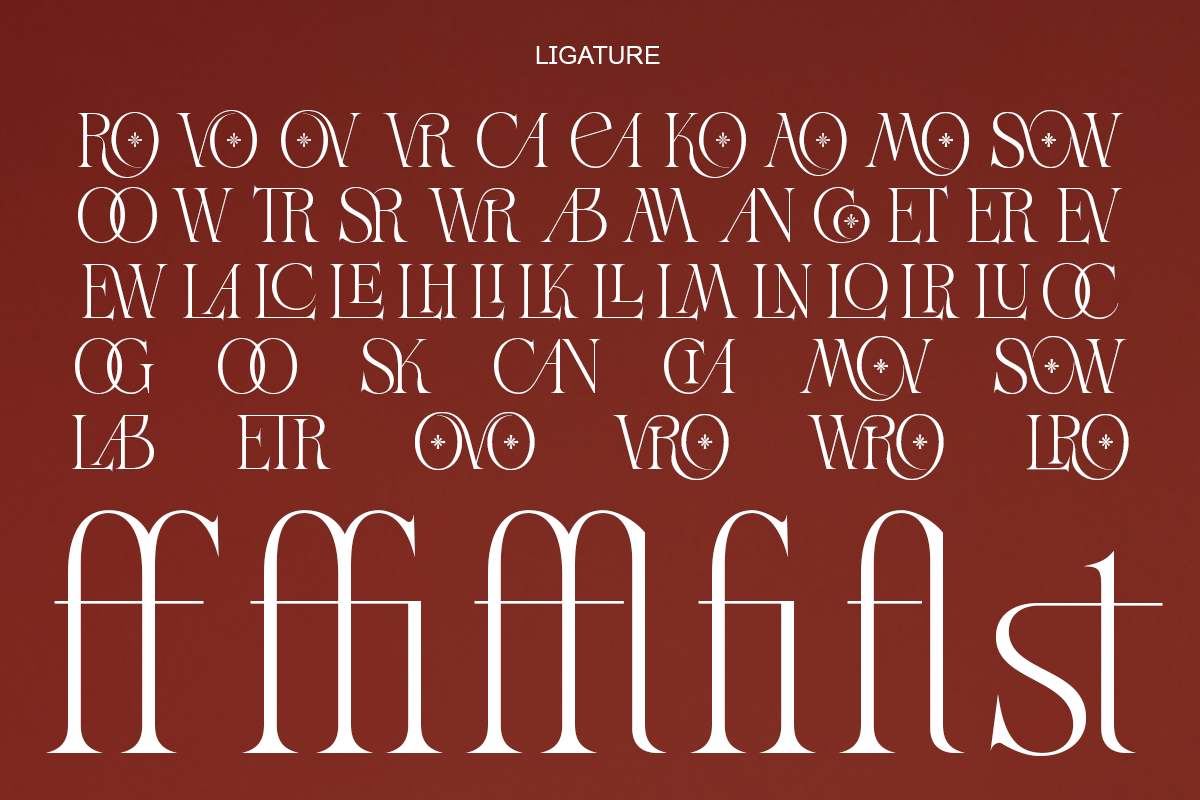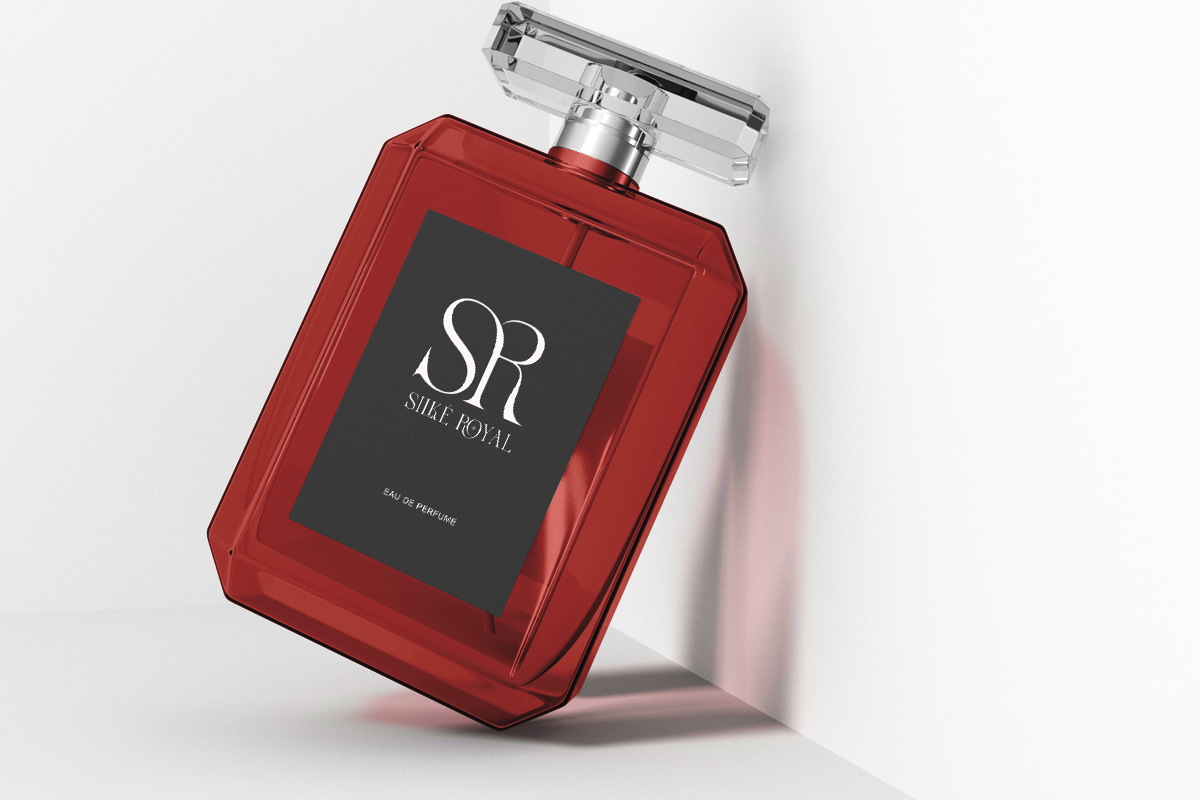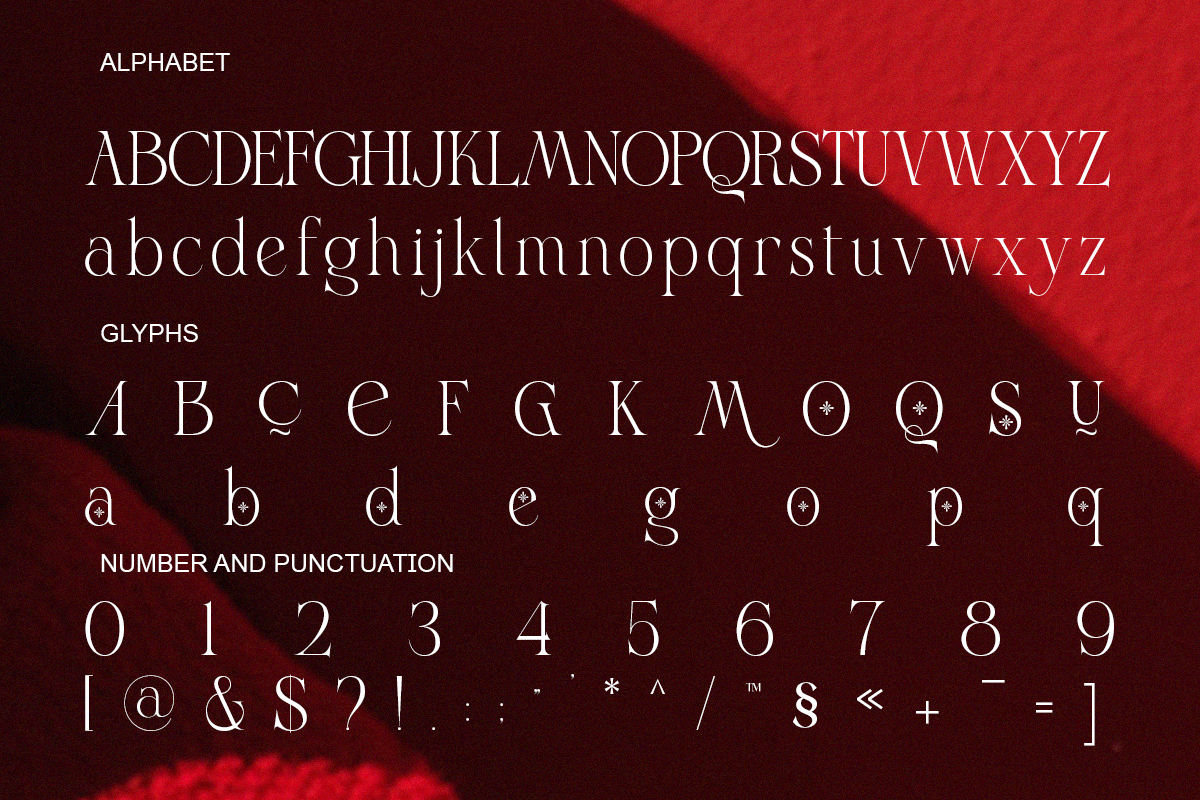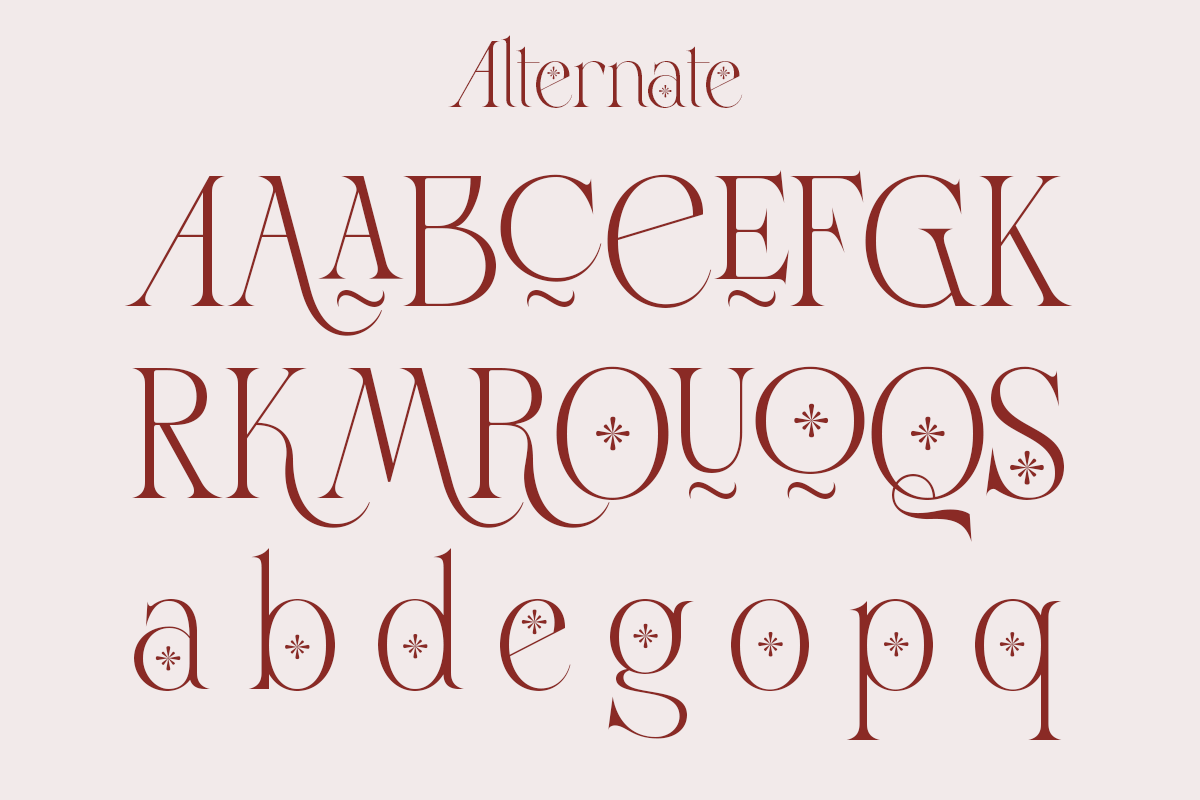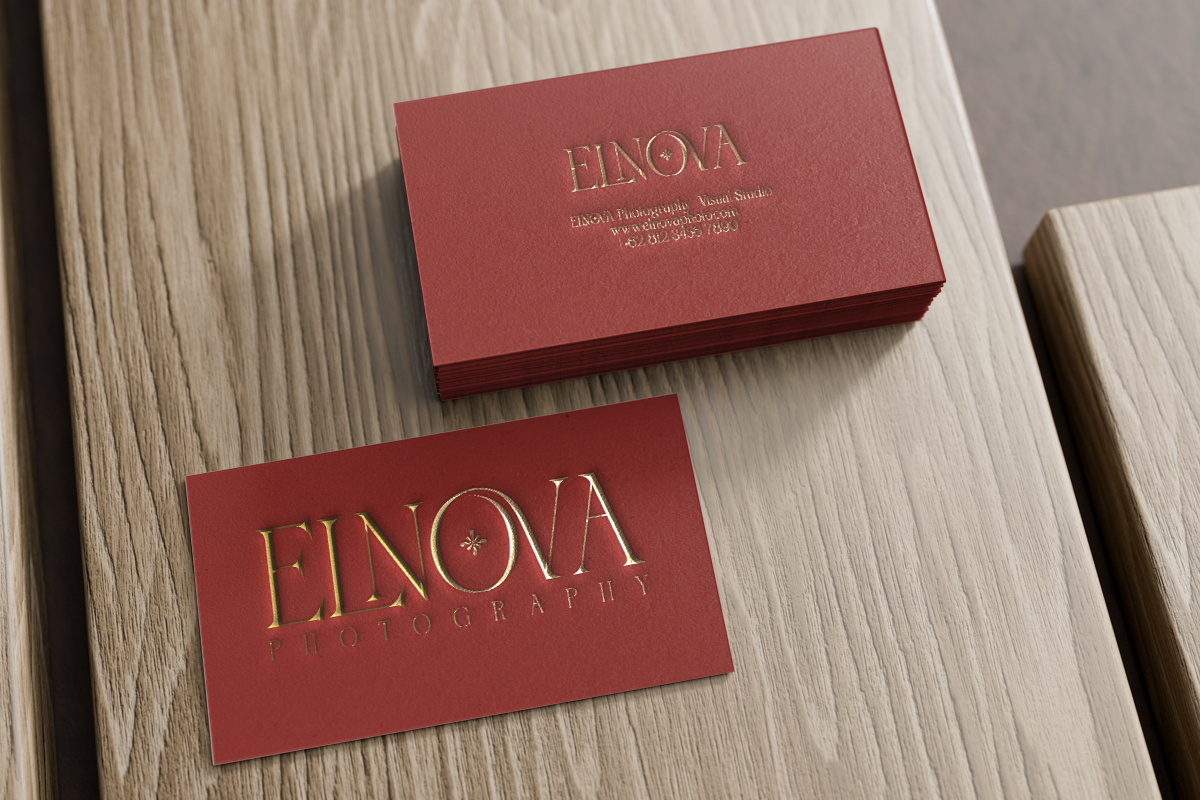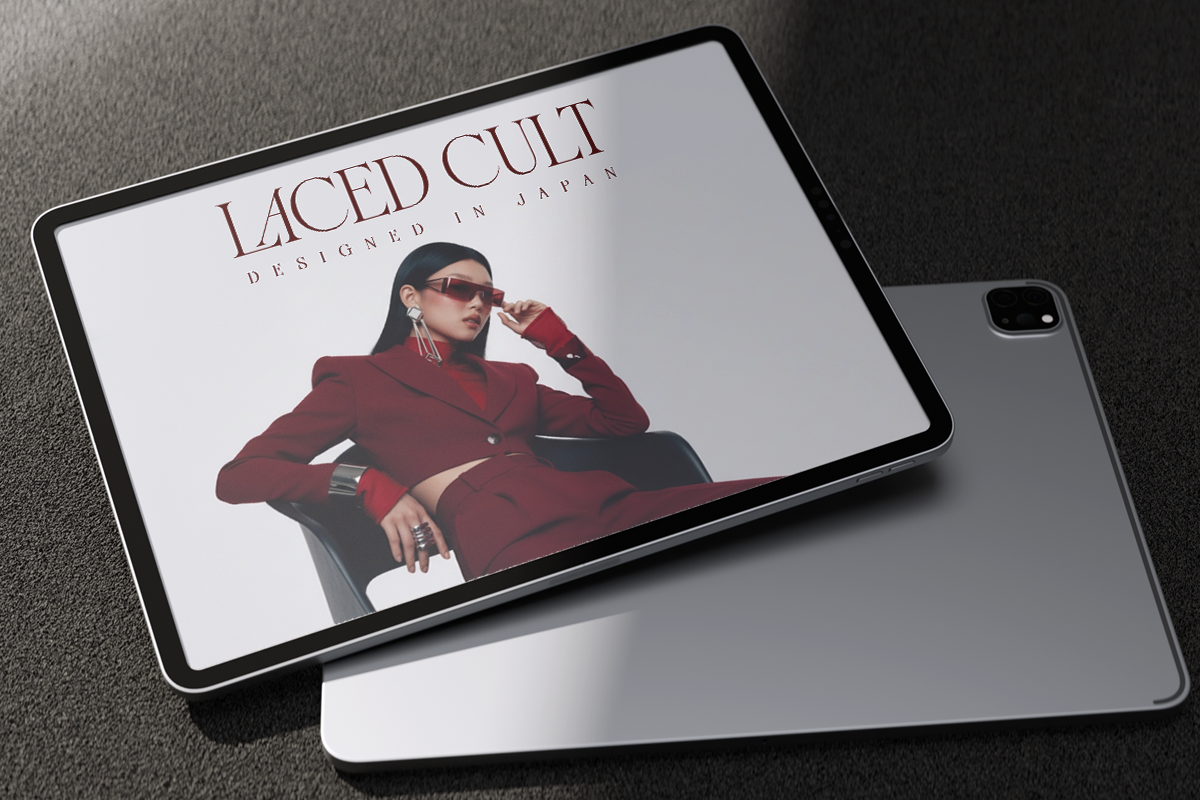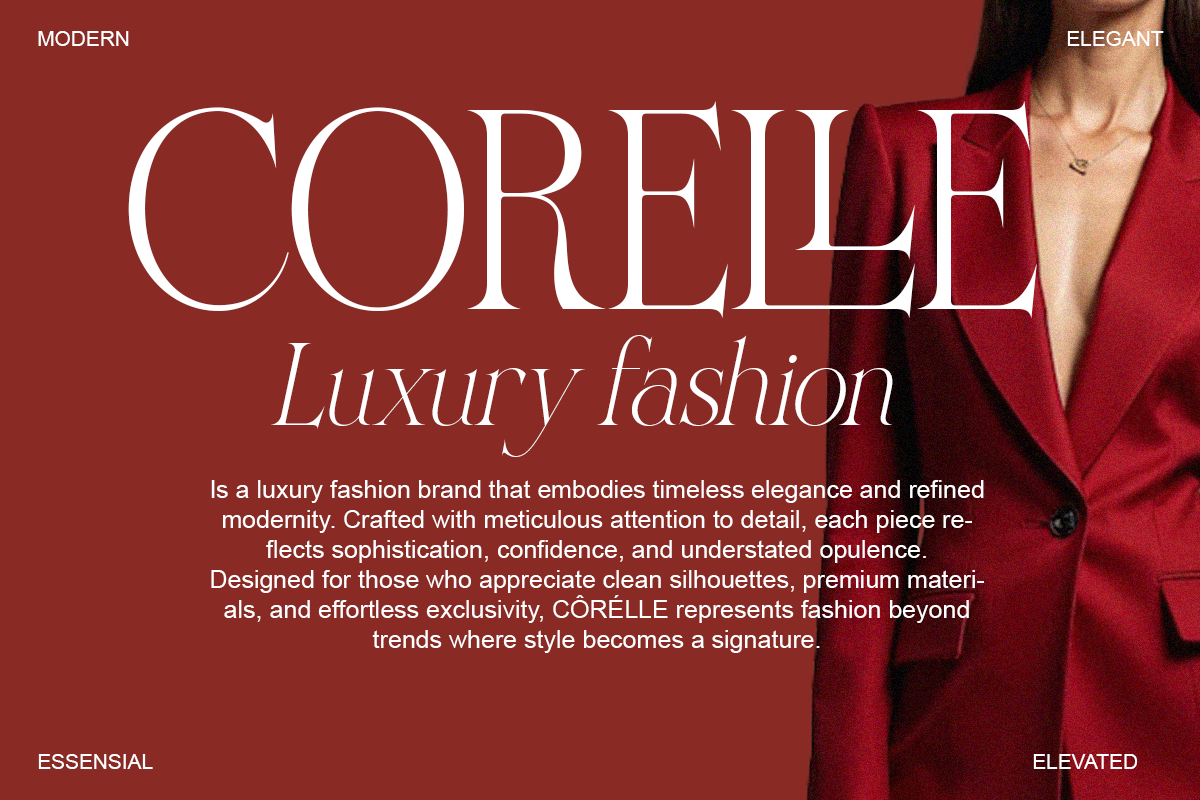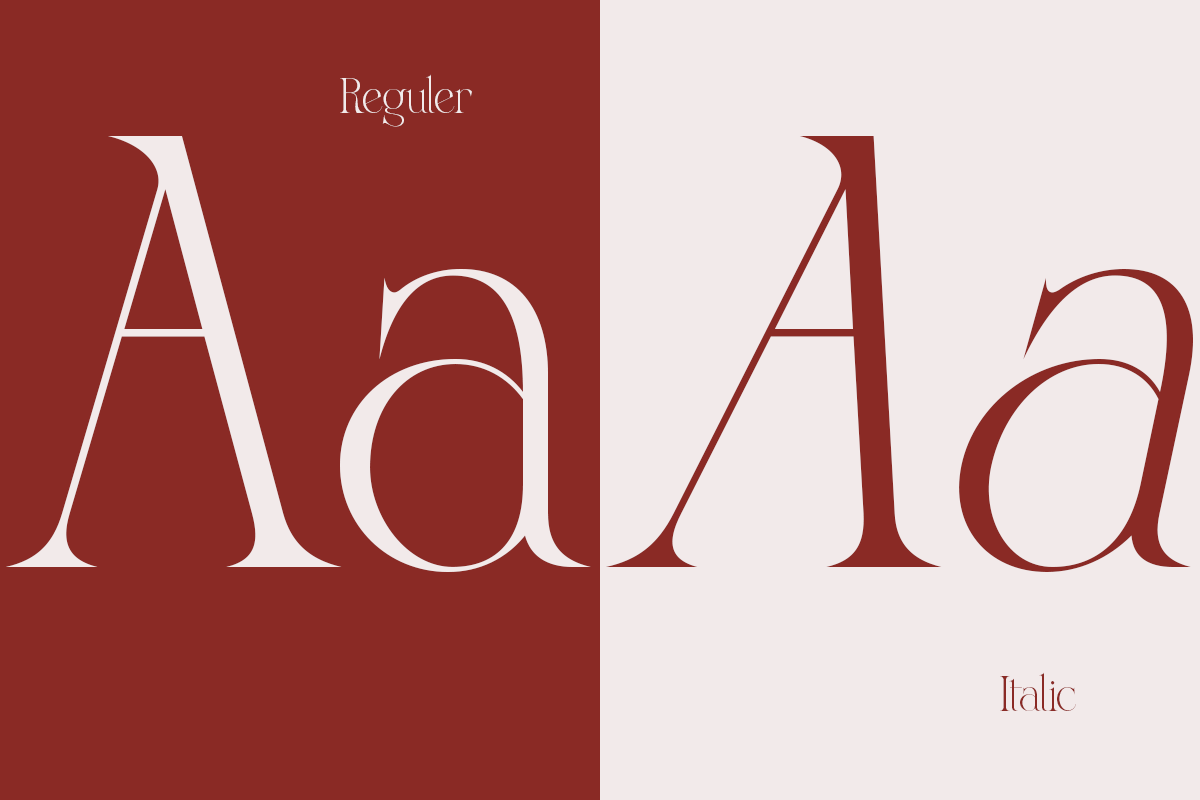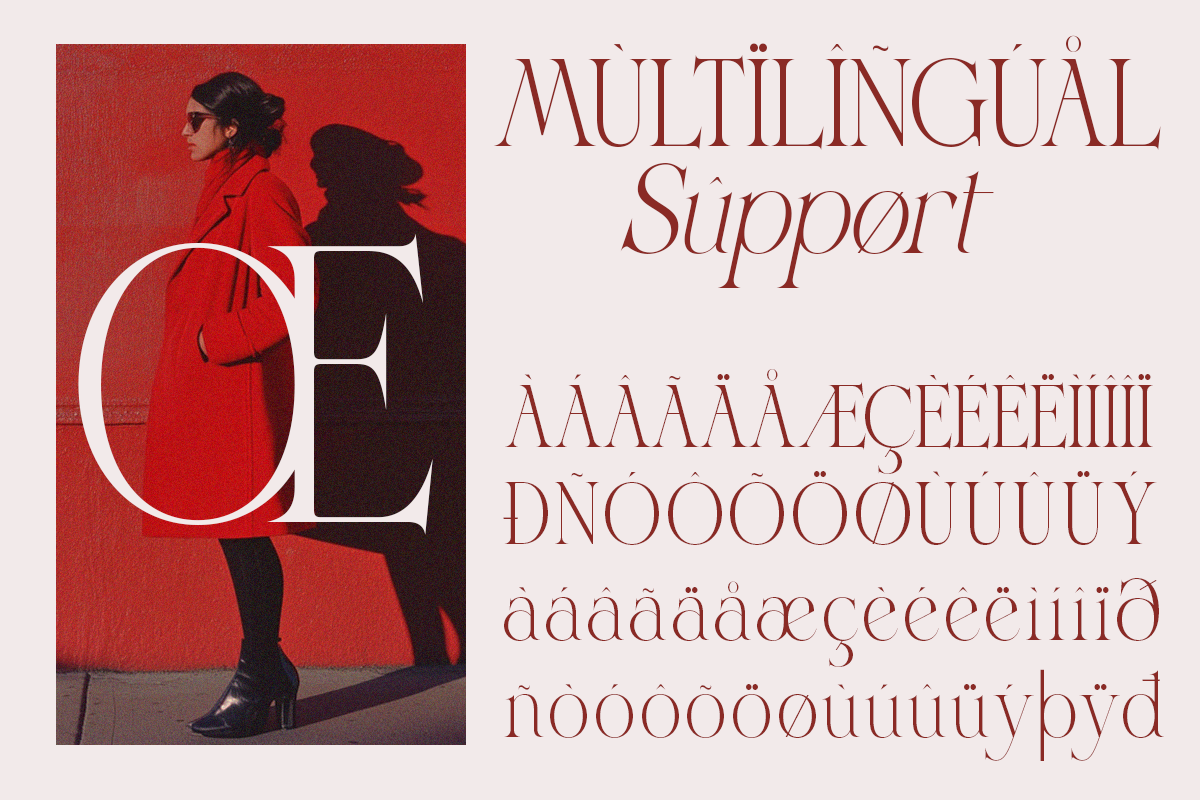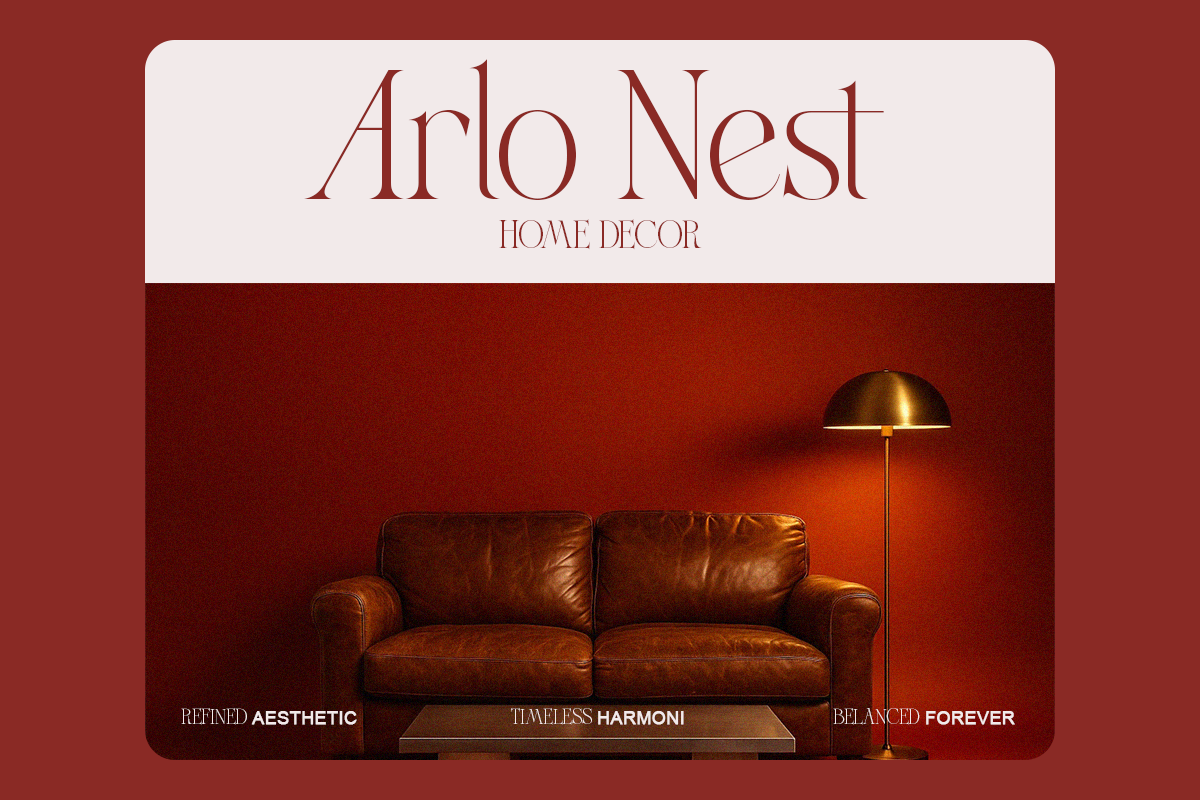
Vroza Conte - Elegant Modern Display
Vroza Conte is an elegant serif display font designed to express modern luxury and artistic refinement. Its clean structure combined with subtle decorative elements creates a timeless yet contemporary feel.
Perfect for branding, fashion editorials, and premium packaging, Vroza Conte delivers a confident and sophisticated typographic voice.
Designed for creatives who want elegance with a unique artistic edge.
- Regular & Italic
- Alternates & ligatures
- Decorative serif elements
Editorial design, fashion branding, luxury logos, packaging, magazines, creative typography